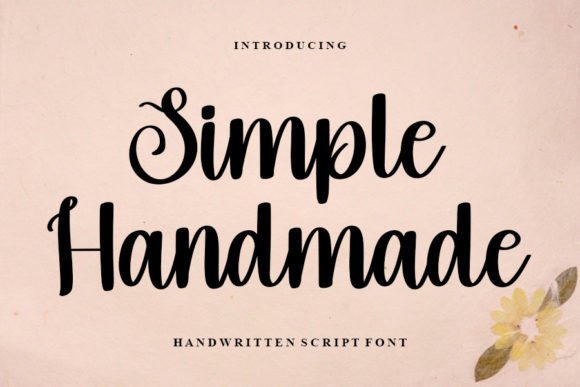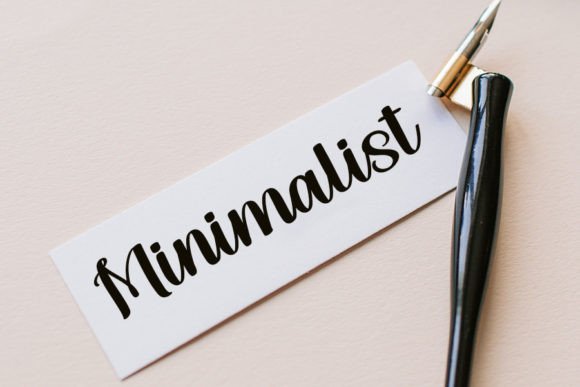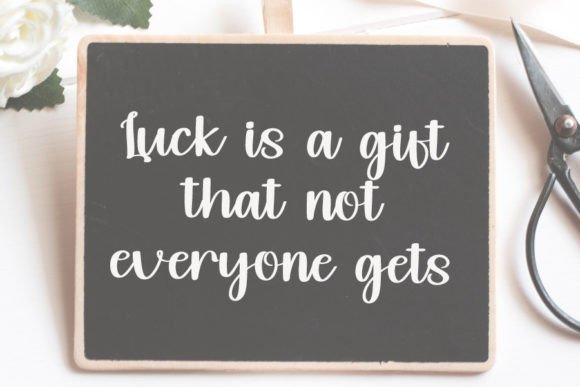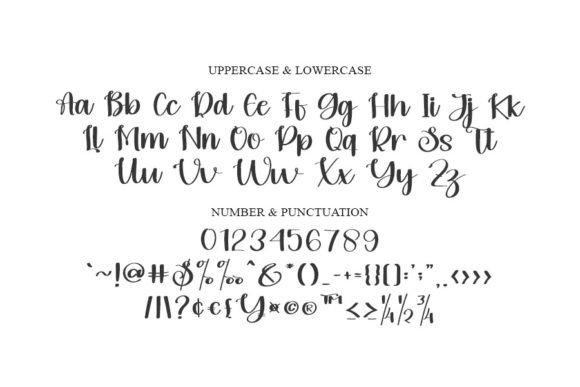
About Simple Handmade
Simple Handmade is a well-balanced handwritten font with a contemporary atmosphere and impeccable form, inspired by a timeless classic calligraphy. It will look outstanding in a wide range of contexts.